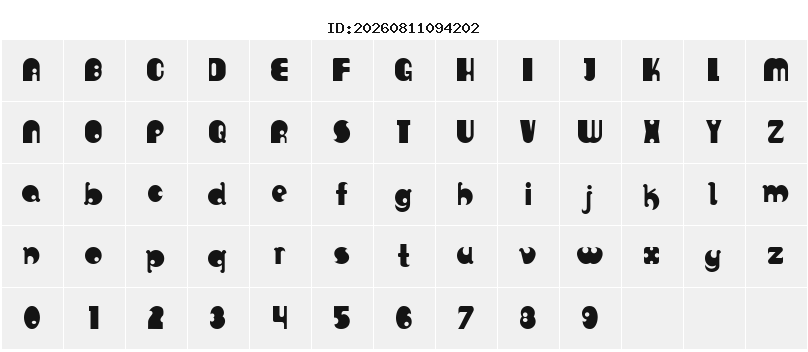
Rolipoli Preview
• Font Name: Rolipoli
• Full Font Name: Rolipoli
About Rolipoli.ttf
Rolipoli.ttf is a modern, elegant sans-serif font designed for ultimate readability and visual harmony. Perfect for branding, headlines, web design, and print materials.